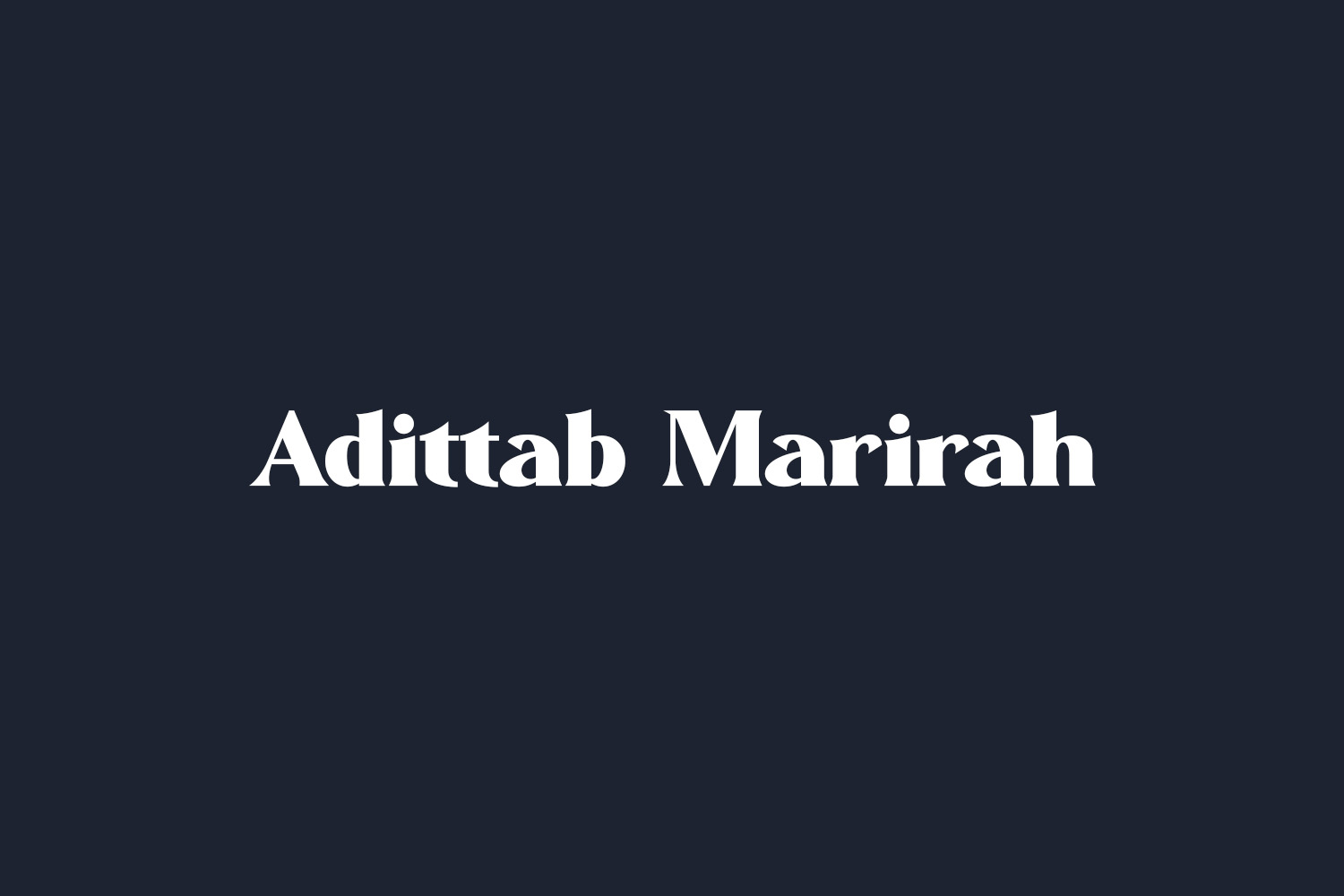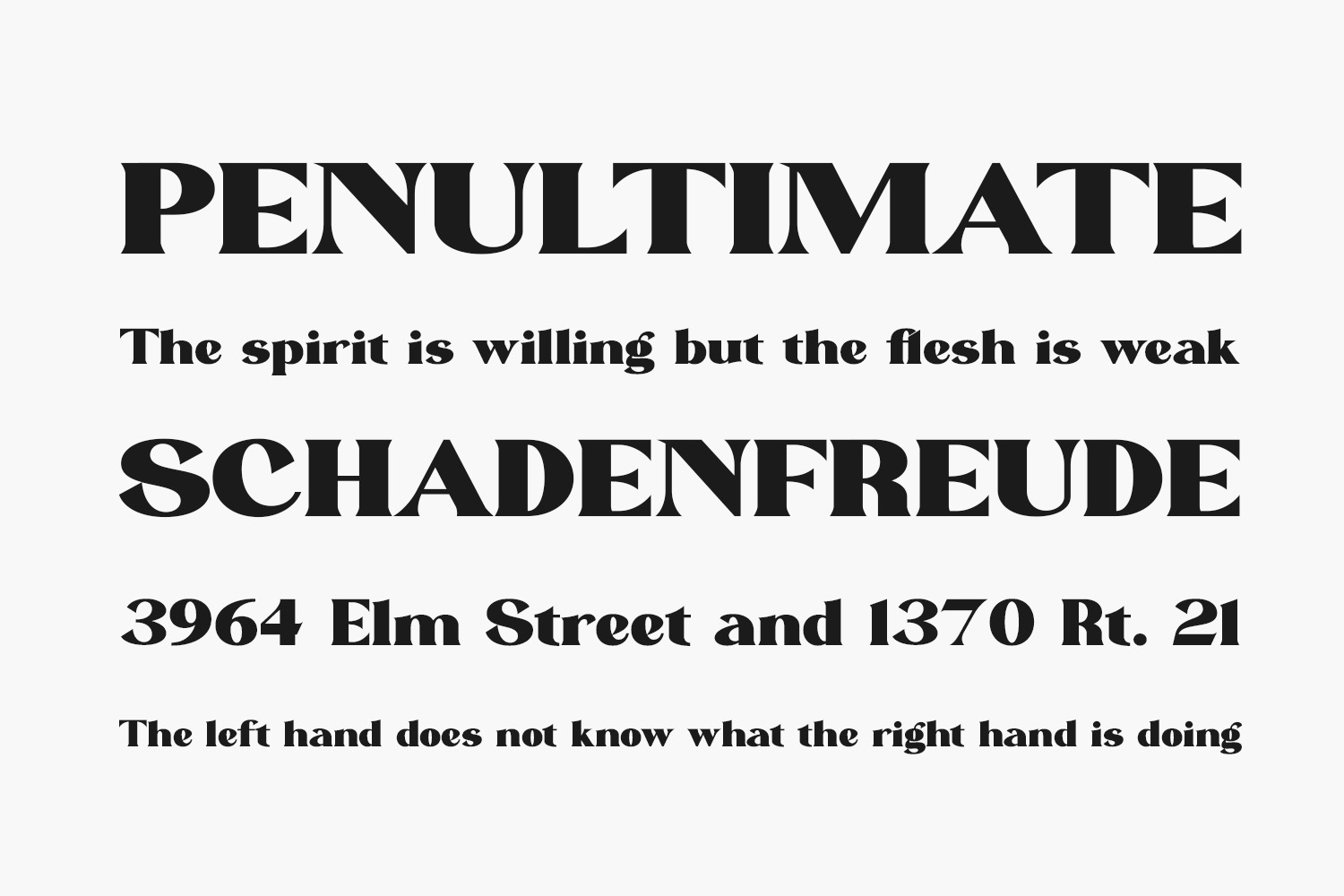
Adittab Marirah Free Font is a serif typeface that combines classic elegance with a contemporary twist, boasting its own distinctive style and a modern aesthetic. This versatile typeface is an ideal choice for creating sophisticated and luxurious logos, captivating book or movie titles, fashion brand identities, magazine layouts, stylish clothing labels, inspiring lettering, memorable quotes, and a plethora of other design applications. Elevate your creative projects with the timeless allure of Adittab Marirah. Adittab Marirah Free Font is free for personal use only. Please purchase the full version for commercial use.